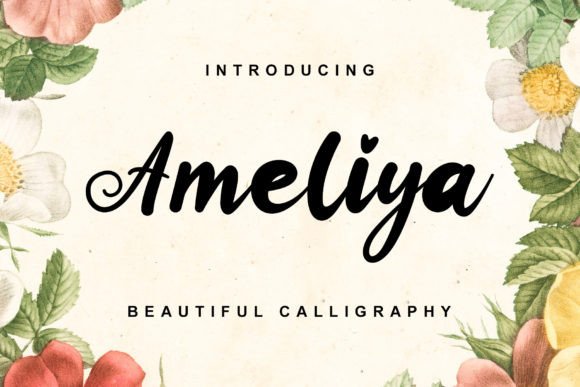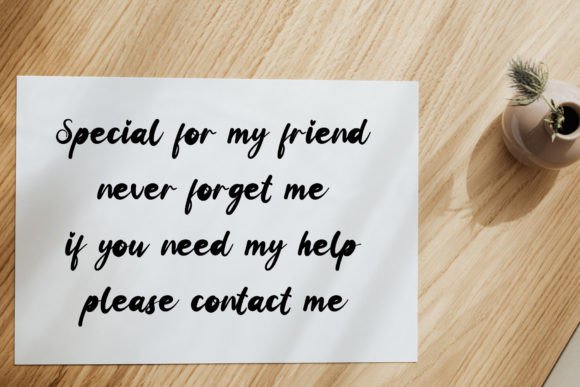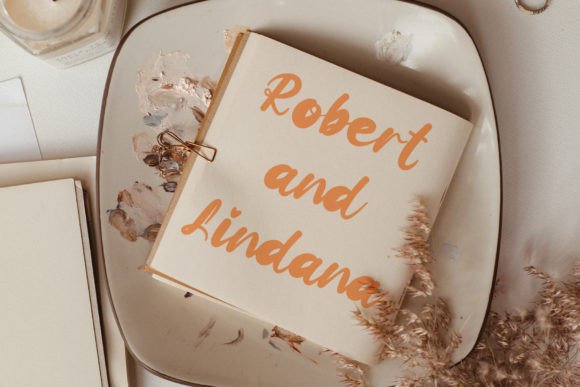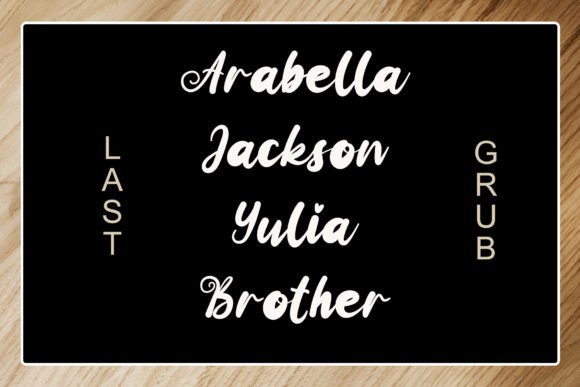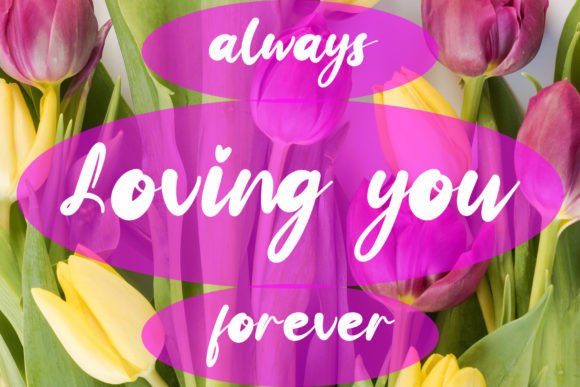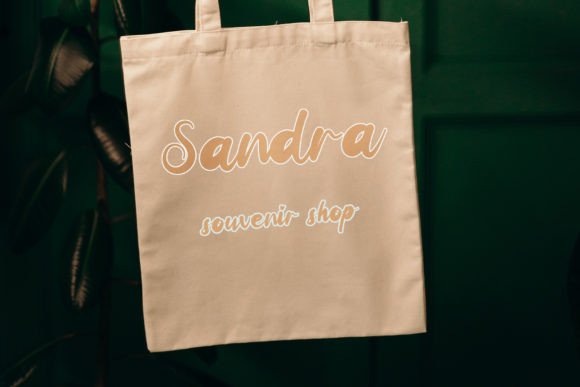
Ameliya Font
About Ameliya Font
“Ameliya” is not just a script font; it’s a beautiful typeface that effortlessly blends playful and romantic charm. If you’re looking to infuse your designs with a touch of elegance and whimsy, “Ameliya” is the perfect choice to elevate your creative projects.
The beauty of “Ameliya” lies in its script style, which brings a sense of fluidity and organic movement to your text. The characters are crafted with care, featuring elegant curves and details that contribute to the overall aesthetic appeal of the font.
Designed with versatility in mind, “Ameliya” can work seamlessly across various design contexts. Whether you’re creating wedding invitations, greeting cards, branding materials, or even social media posts, this font adds a delightful and engaging element to your visual communication.
The playful romantic charm of “Ameliya” makes it particularly well-suited for projects that require a touch of whimsy and sophistication. It can be the perfect choice for expressing love and warmth in designs related to weddings, celebrations, or any occasion where a romantic and playful vibe is desired.
Incorporating “Ameliya” into your design toolkit opens up opportunities to experiment with different layouts, color schemes, and accompanying elements. Let the font guide you in creating compositions that evoke emotions and resonate with your audience.
As you add “Ameliya” to your creations, consider exploring its potential in crafting visually appealing headlines, taglines, or even standalone pieces of typography art. The script nature of the font allows for creative flexibility, enabling you to emphasize certain letters or words to enhance visual interest.
Overall, “Ameliya” is more than just a font; it’s a design asset that brings a delightful blend of beauty, playfulness, and romance to your projects. Get inspired, experiment, and let “Ameliya” take your designs to the next level with its captivating and charming aesthetic.